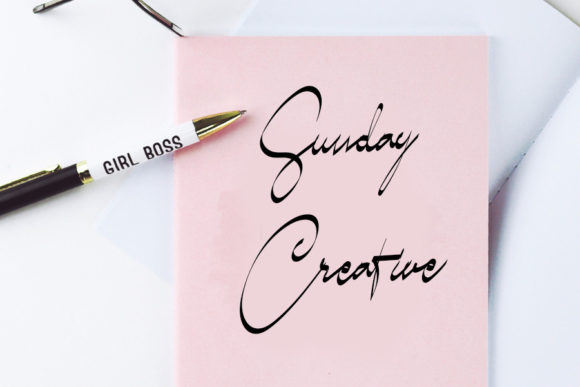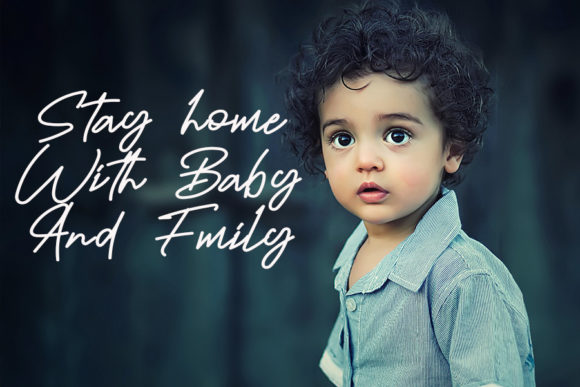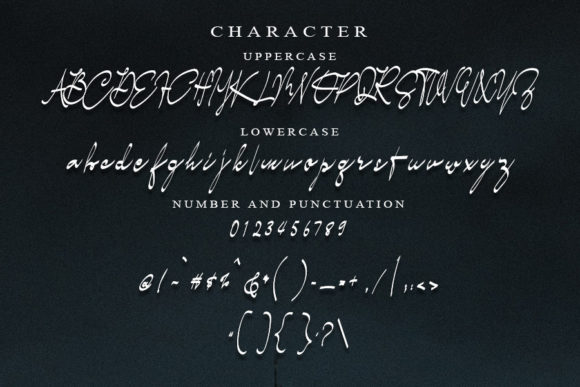
Introduction to Shot Signature Font
Shot Signature is a delicate and elegant handwritten font.
Its distinct and well balanced letters make this font a masterpiece Fall in love with its incredibly versatile style and use it to create spectacular designs.
Key Features of Shot Signature Font
Why Choose Shot Signature Font?
Shot Signature Font offers exceptional quality and versatility, making it a valuable addition to your design toolkit. Whether you’re creating for personal projects or commercial use, Shot Signature Font delivers professional results.